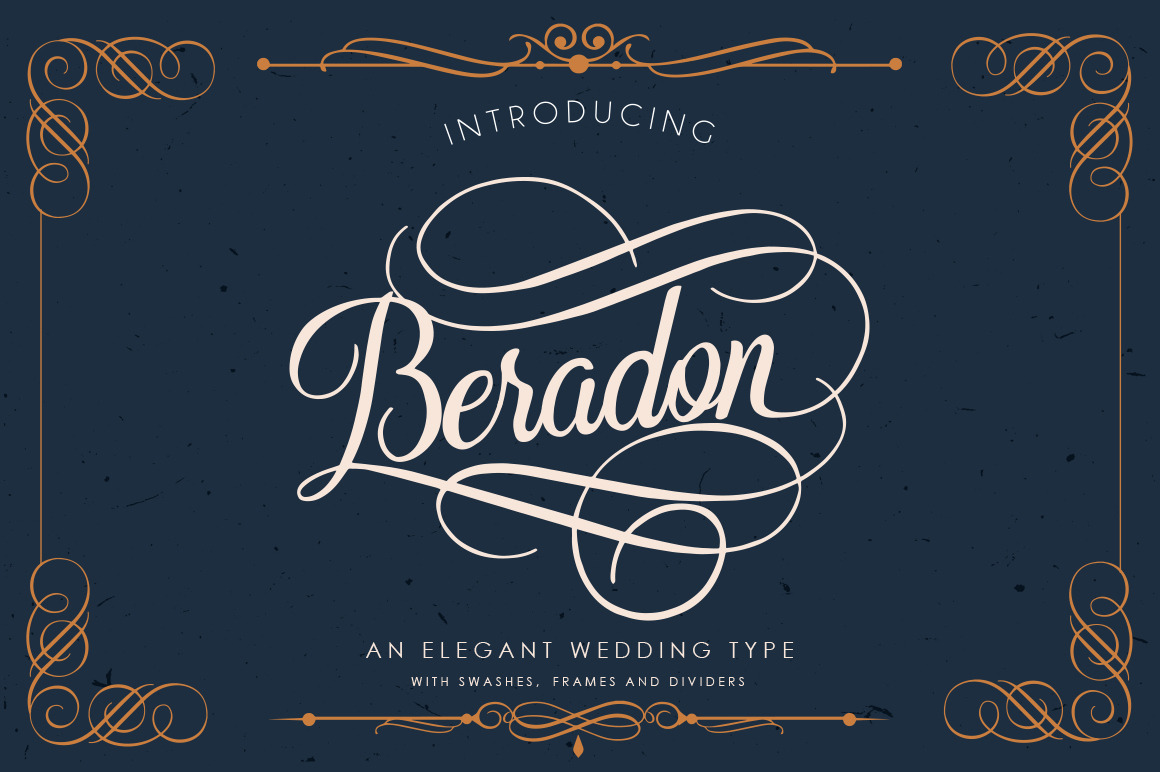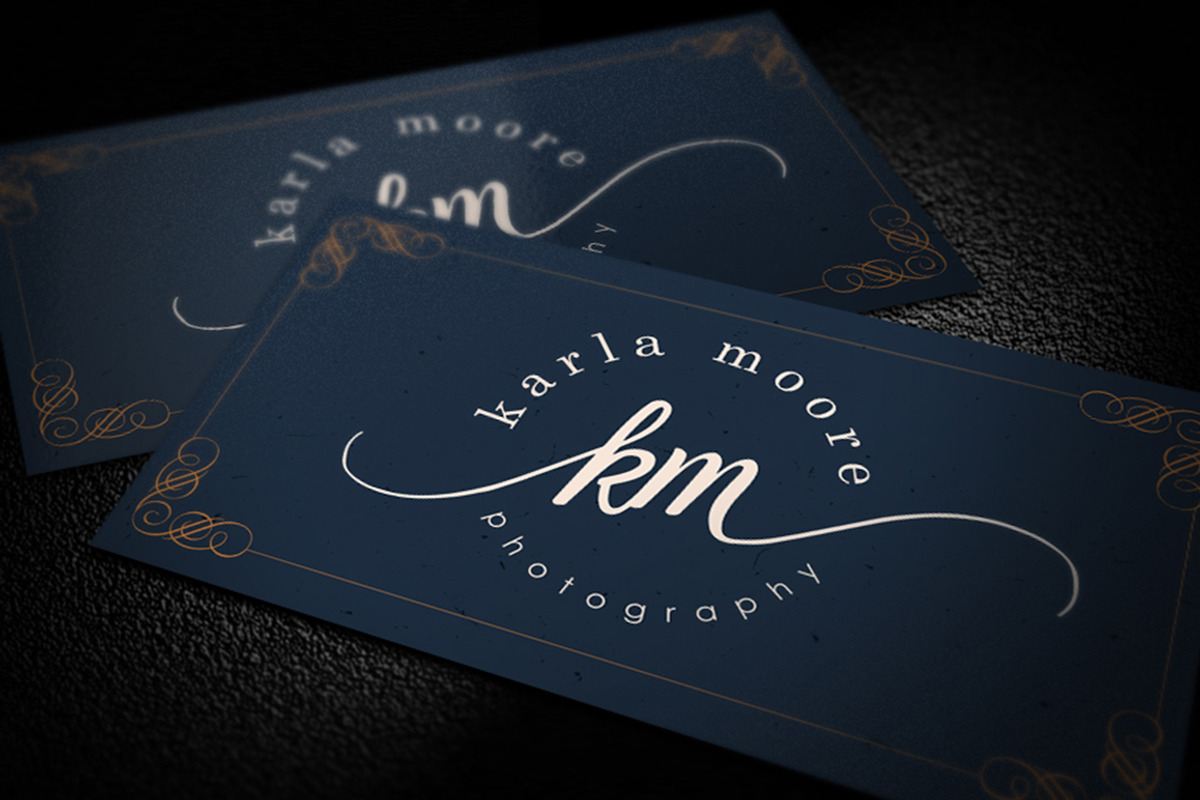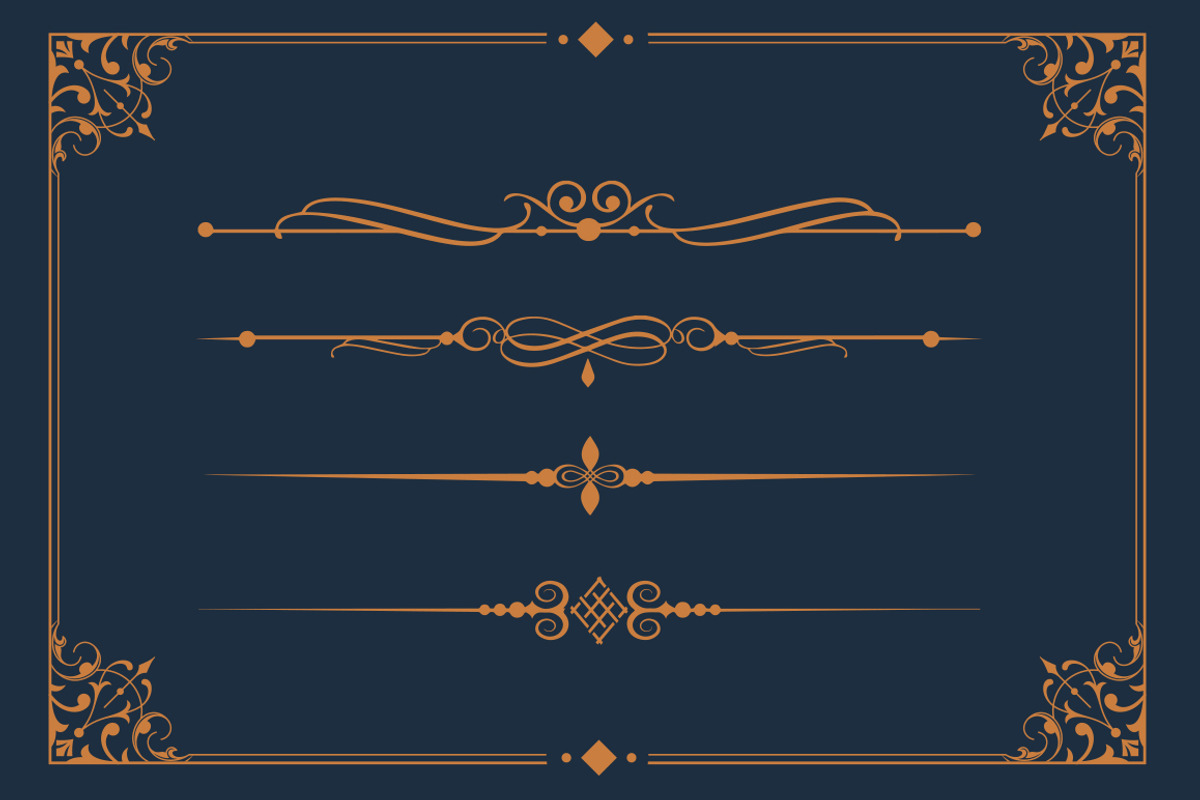
Beradon Script -Elegant Wedding font
Beradon Script is an elegant script font with more than 400 alternatives and a Bonus of 6 frames and 6 dividers.